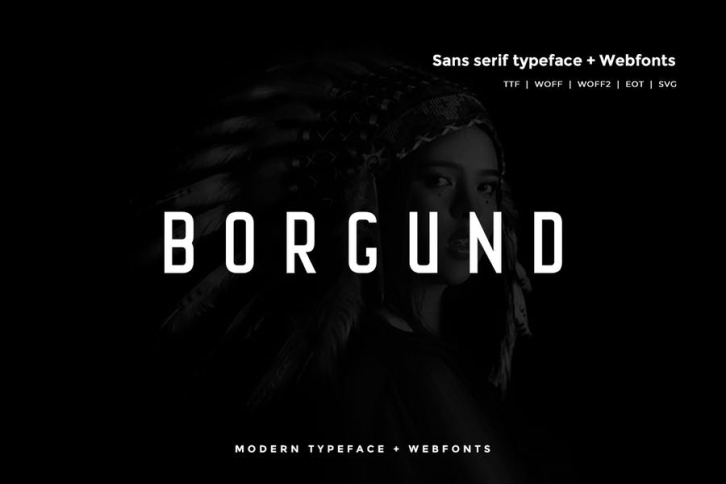
Borgund Sans Typeface
Borgund Sans is a modern and Minimal Sans Serif typeface, Borgund Sans can keep the minimalism at its level best and is a Perfect choice for Creative and Classic Typography Designs. The pack includes OTF, TTF and Web Fonts (all EOT, SVG, TTF, WOFF included).
Font Designed and Crafted by Sterin Henry, Distributed by Webhance Studio.